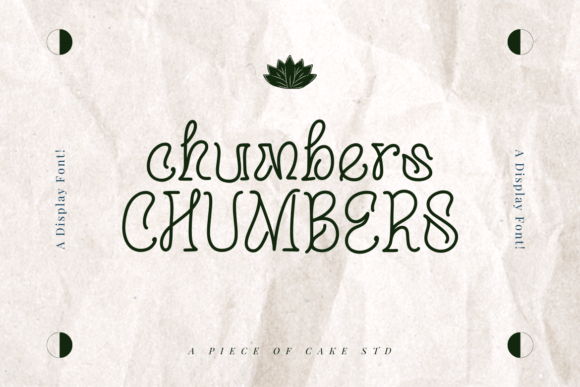
Chumbers Font
Embark on a typographic journey with Chumbers Font, an exquisite display font meticulously crafted by a piece of cake. Its elegant and stylish letterforms, brimming with warmth and charm, are ready to make a statement in your creative projects.
With Chumbers Font, you'll find endless possibilities for visual expression. Whether you're designing wedding invitations, Valentine's Day cards, or eye-catching headlines, this font will effortlessly elevate your designs. Its timeless, classic beauty will add a touch of sophistication and romance to any project.
Chumbers Font's versatility knows no bounds. Use it to create captivating logotypes, overlay text on images with artistic flair, or design packaging that truly stands out. Let your imagination run wild as you explore the myriad ways in which this remarkable font can enhance your work.
As a display font, Chumbers Font truly shines. Its bold, expressive characters are designed to capture attention and convey a clear message. Whether you're a seasoned designer or just starting out, you'll appreciate the ease with which this font can transform ordinary words into captivating visual elements.
So, why wait? Dive into the world of typography with Chumbers Font today. Its charm, versatility, and timeless style will leave a lasting impression on your audience. Let your creativity flourish as you unlock the full potential of this captivating display font. Experience the magic of Chumbers Font and see your designs come to life!